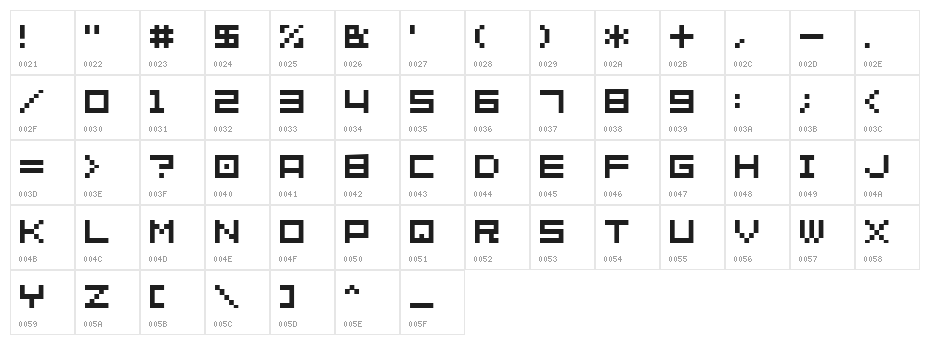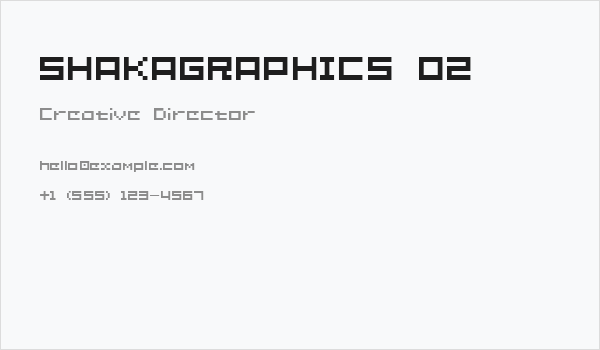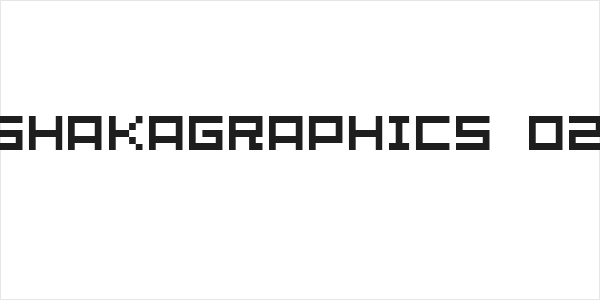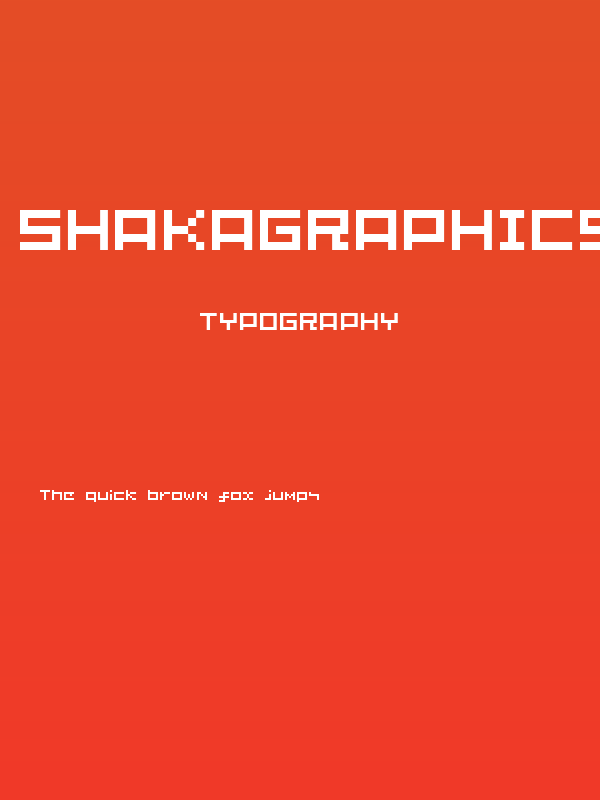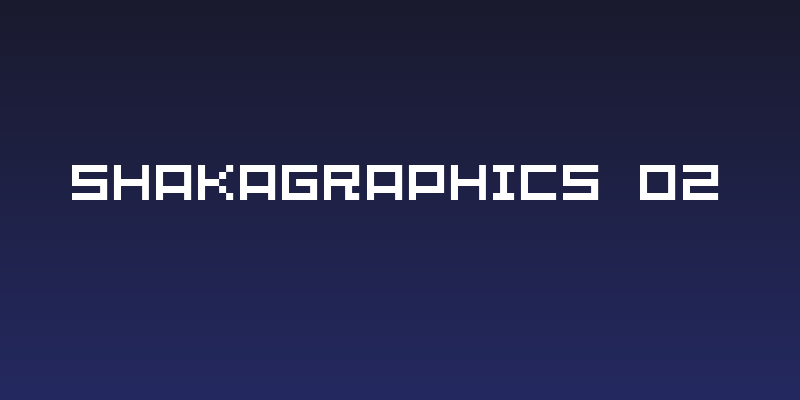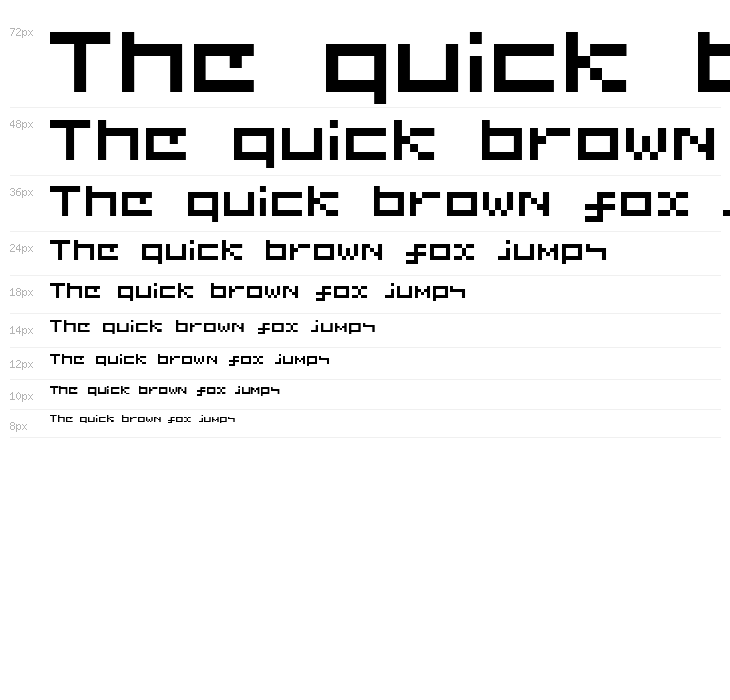
SHAKAGRAPHICS 02 Font
SHAKAGRAPHICS 02 Description
This font features a bold, pixelated design reminiscent of early digital displays and retro video games. Each character is constructed with a blocky, grid-like structure, giving it a distinctly digital and geometric appearance. The uppercase and lowercase letters maintain a consistent height, enhancing the uniformity and readability of the typeface. Numbers and special characters follow the same pixelated style, ensuring a cohesive look across all glyphs. The font's simplicity and clarity make it ideal for projects that aim to evoke a sense of nostalgia or a futuristic digital aesthetic.
| Proposed Projects | Ideal for video game design, retro-themed graphics, digital art, and tech-related branding. |